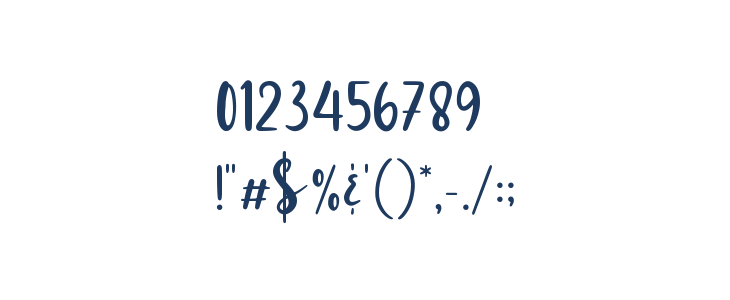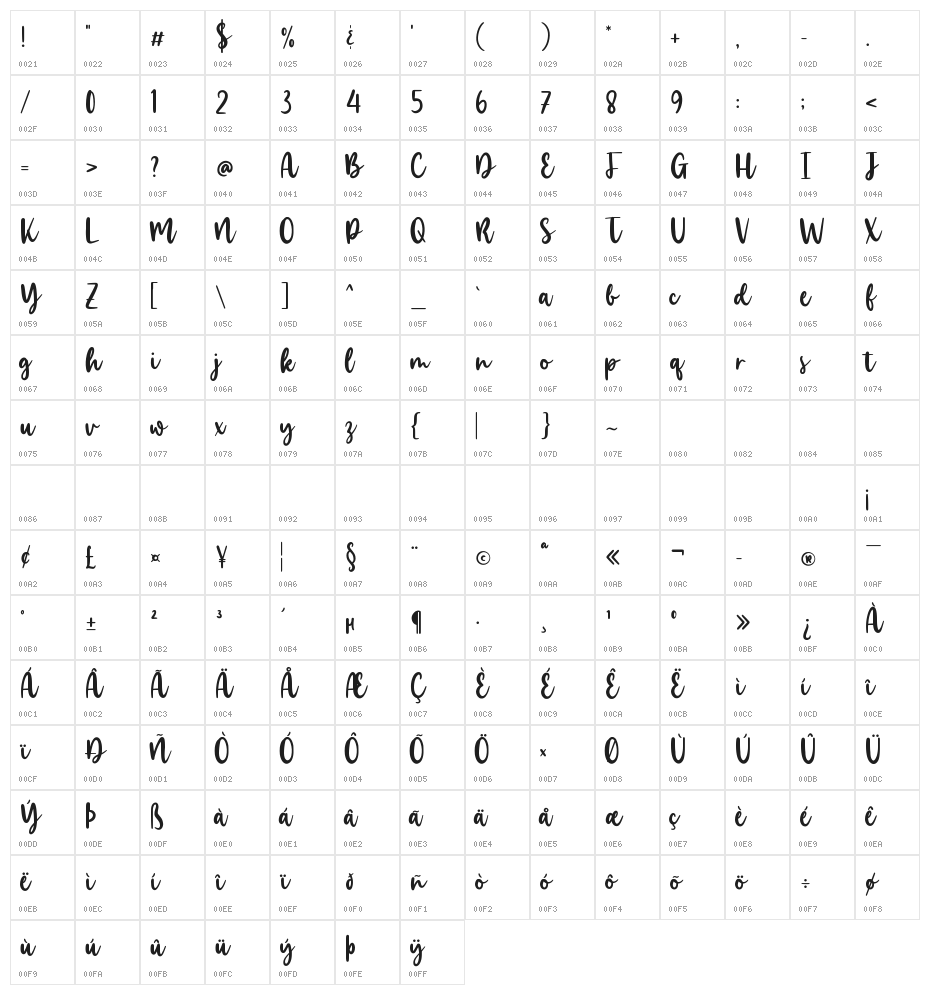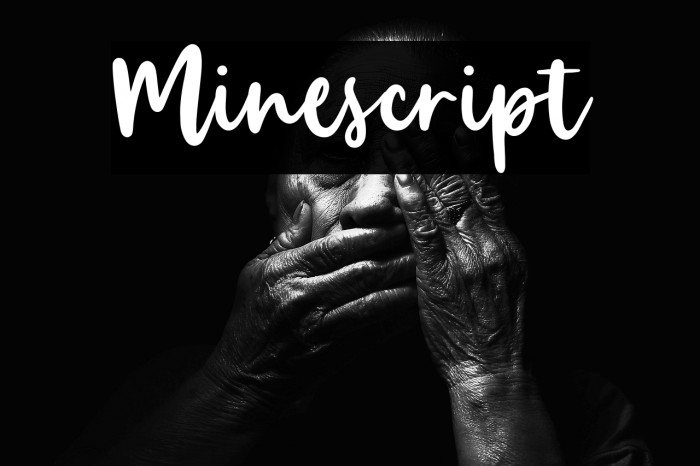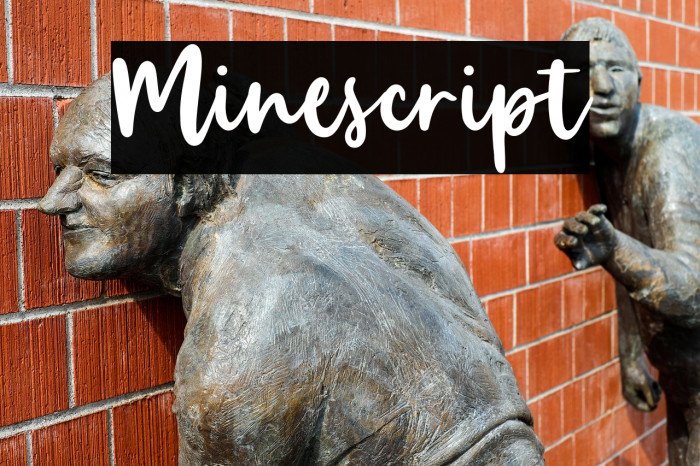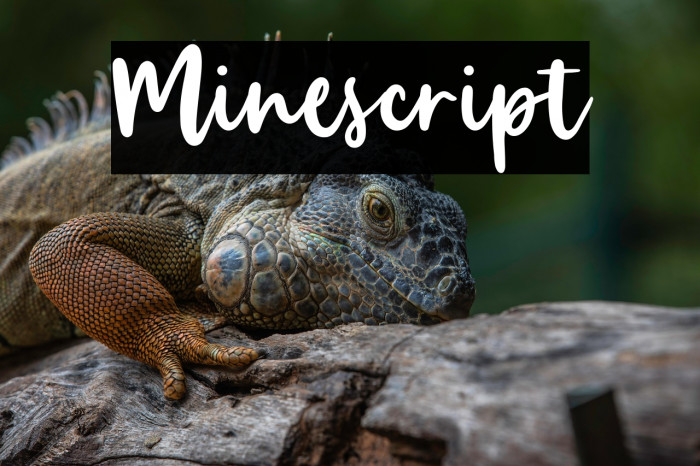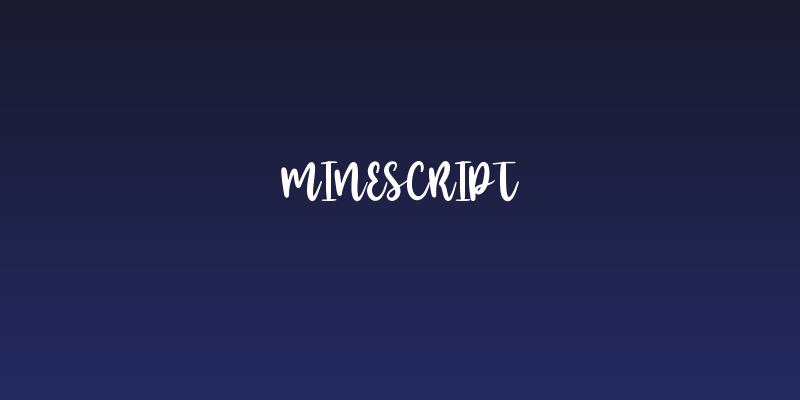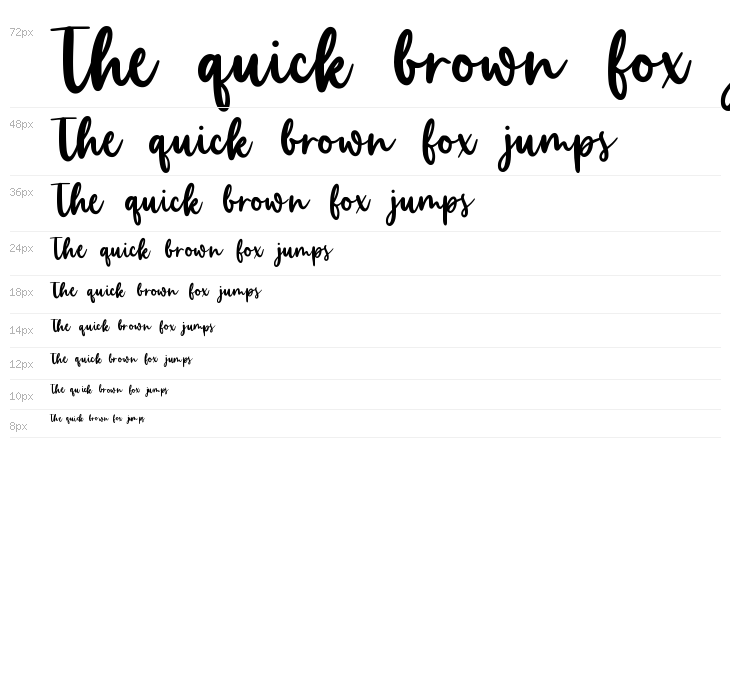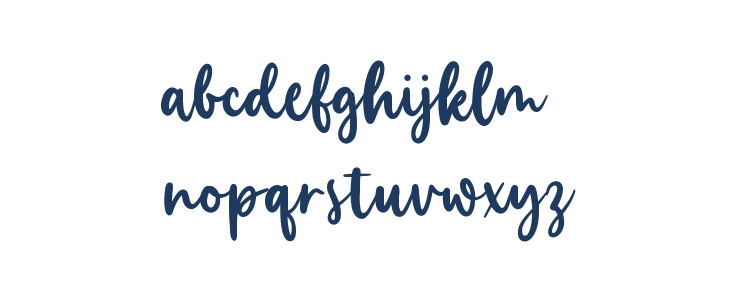
Minescript Font
Minescript Description
This font features a lively and flowing script style, characterized by its bold and smooth curves. The uppercase letters are tall and elegant, while the lowercase letters maintain a consistent, rounded appearance. The numbers are clear and legible, complementing the overall design. Special characters are integrated seamlessly, adding versatility to the font. Its handwritten aesthetic gives it a personal and approachable feel, making it suitable for a variety of creative projects.
| Use Case | Logos, Headlines, Invitations |
| Proposed Projects | Ideal for wedding invitations, greeting cards, branding, and social media graphics. |